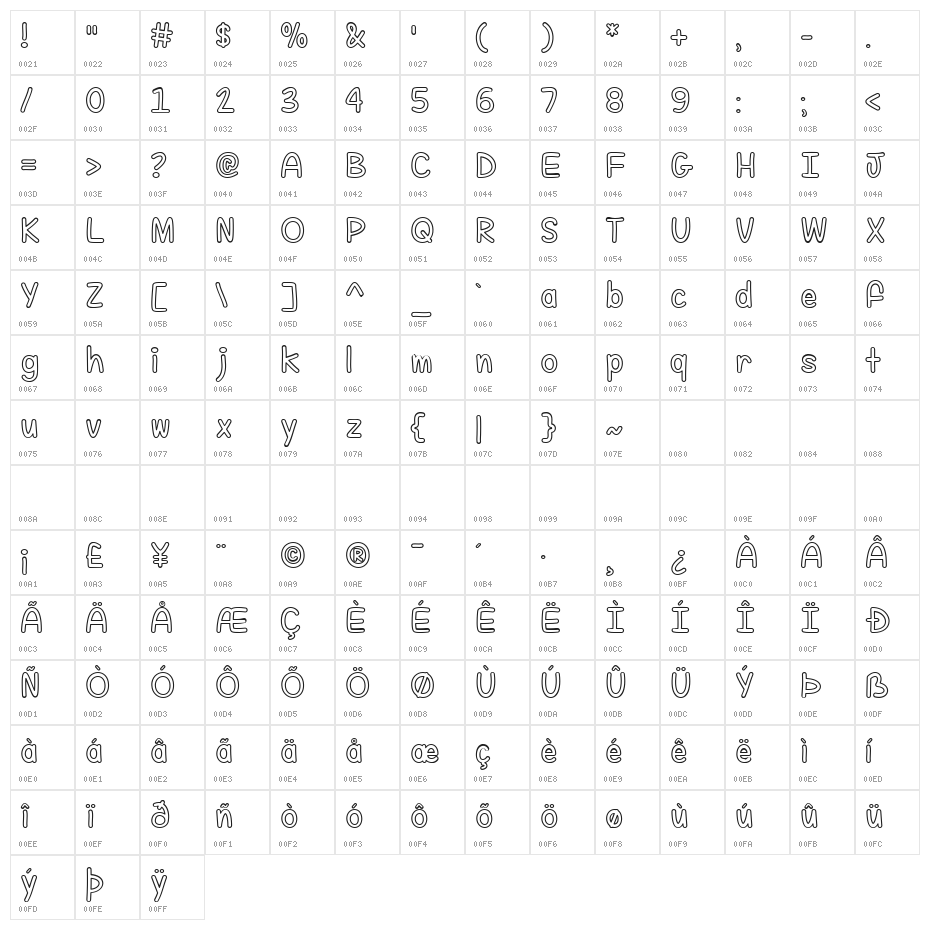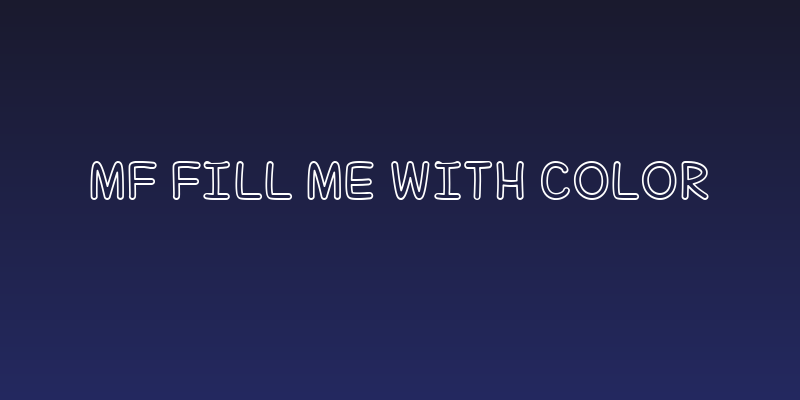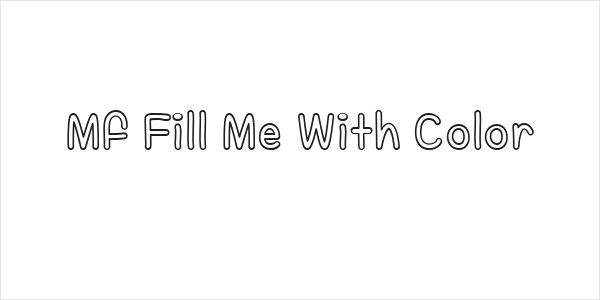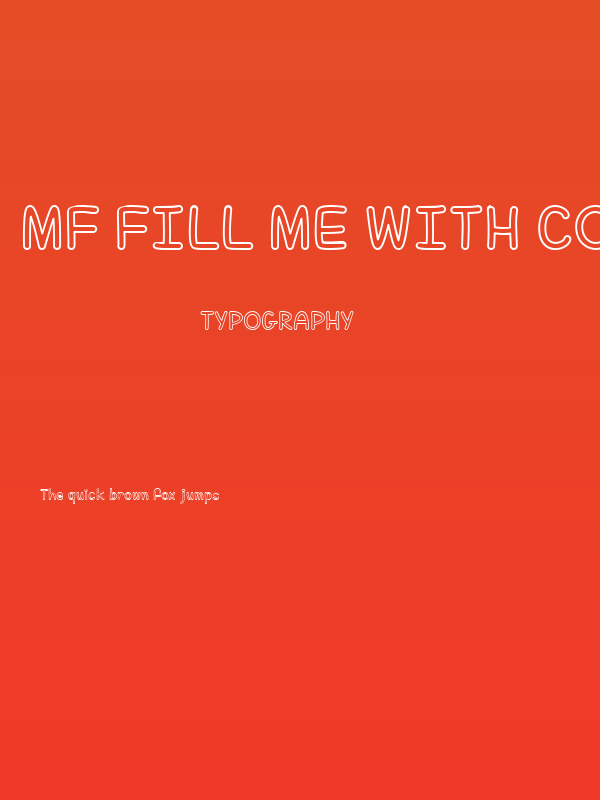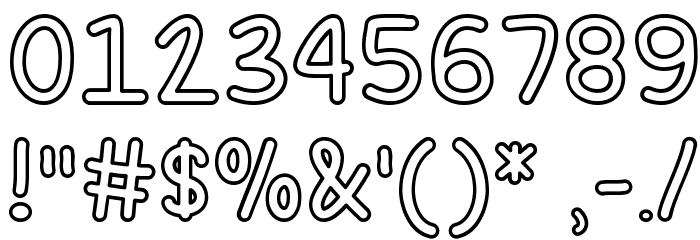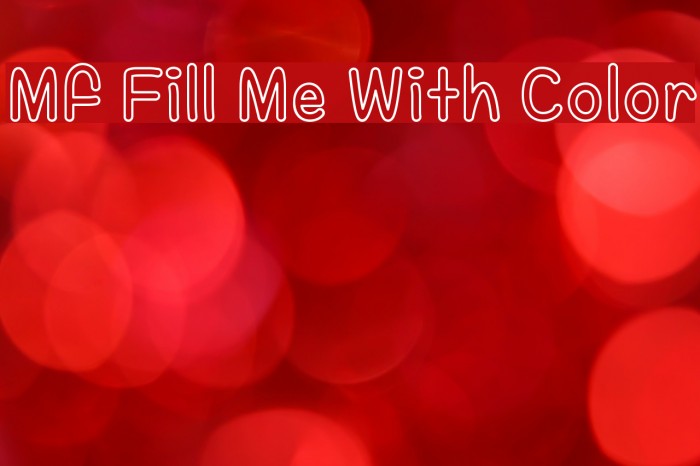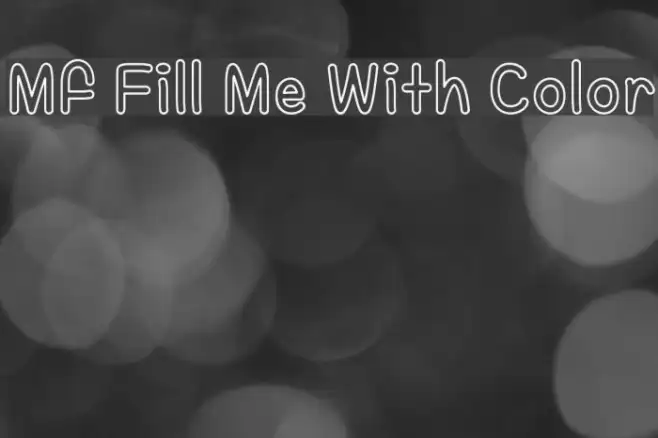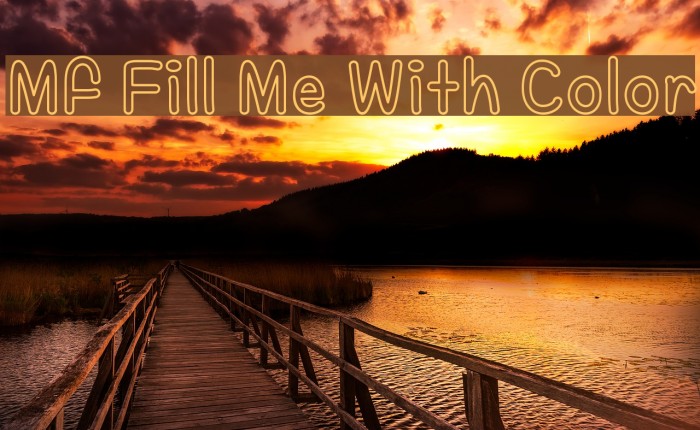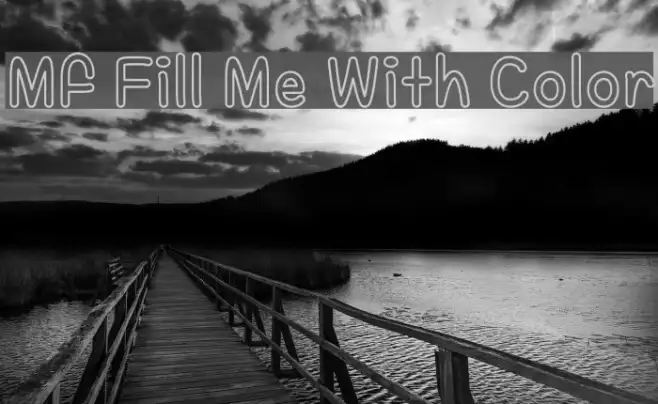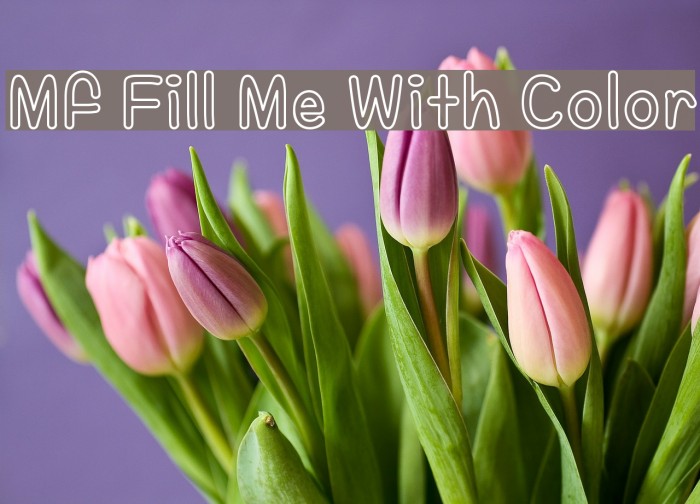
Mf Fill Me With Color Font
Mf Fill Me With Color Description
This playful and inviting font features rounded, bubble-like characters with a hollow interior, making it perfect for coloring or adding a splash of creativity. The letters are evenly spaced and maintain a consistent thickness throughout, giving it a balanced and approachable appearance. Its whimsical style is ideal for projects that require a fun and lighthearted touch. The font includes a full set of uppercase and lowercase letters, numbers, and a variety of special characters, ensuring versatility for different design needs.